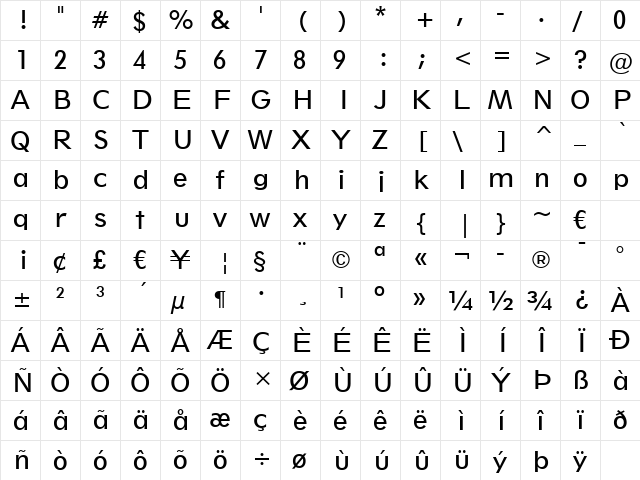
Geometr212 Bk BT Book
Design Context for Geometr212 Bk BT Typeface
Geometr212 Bk BT takes a measured approach to typography — its balanced proportions and neutral character make it a reliable workhorse for both digital and print work.